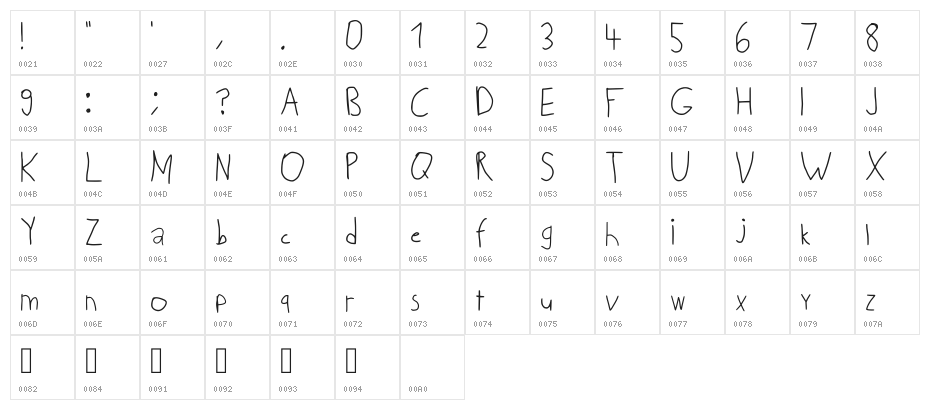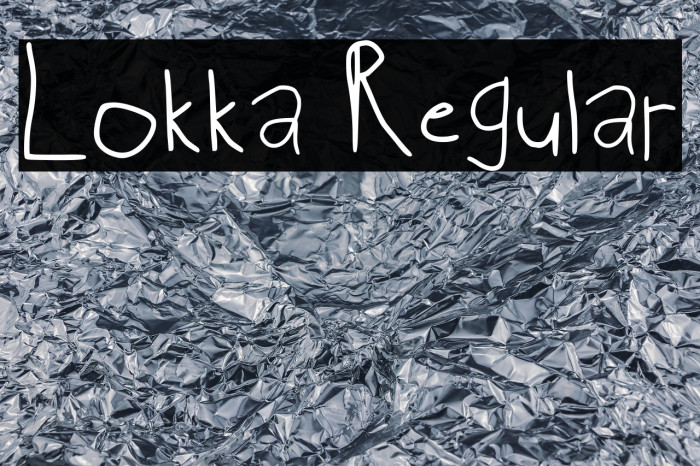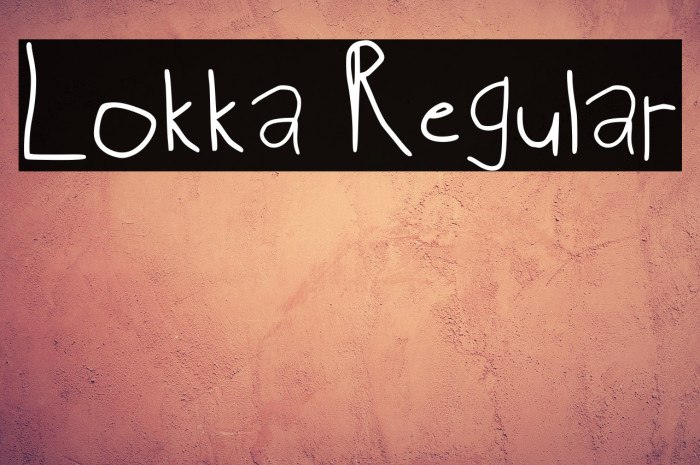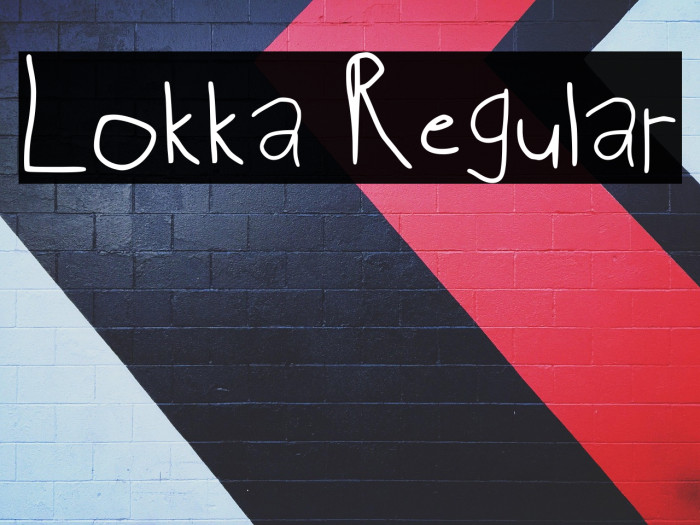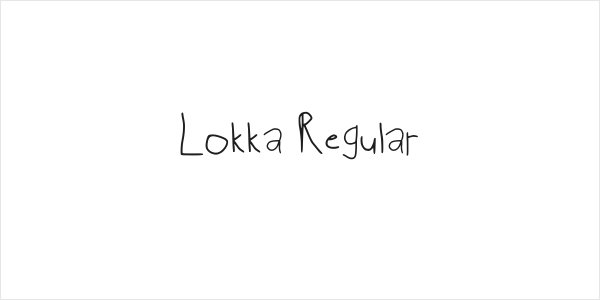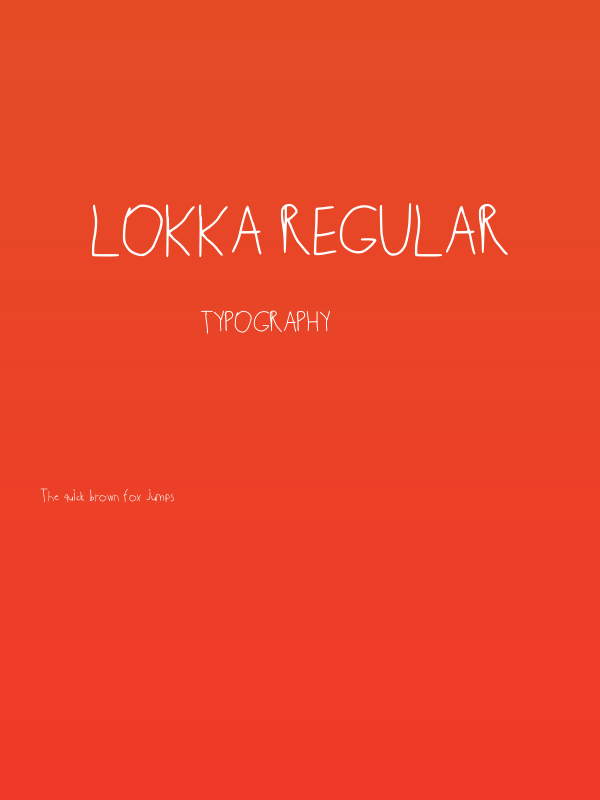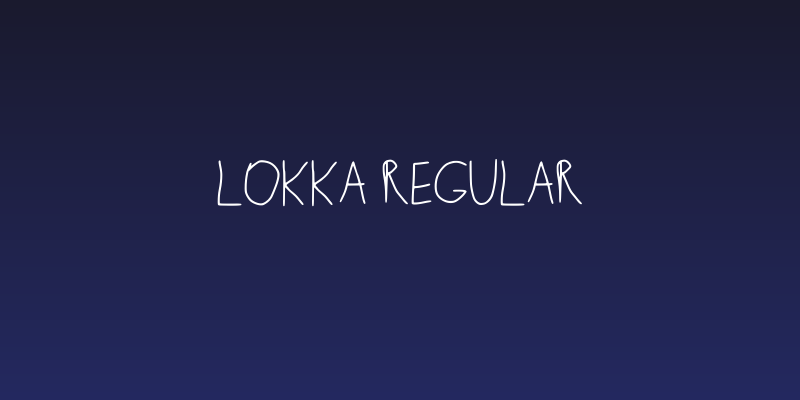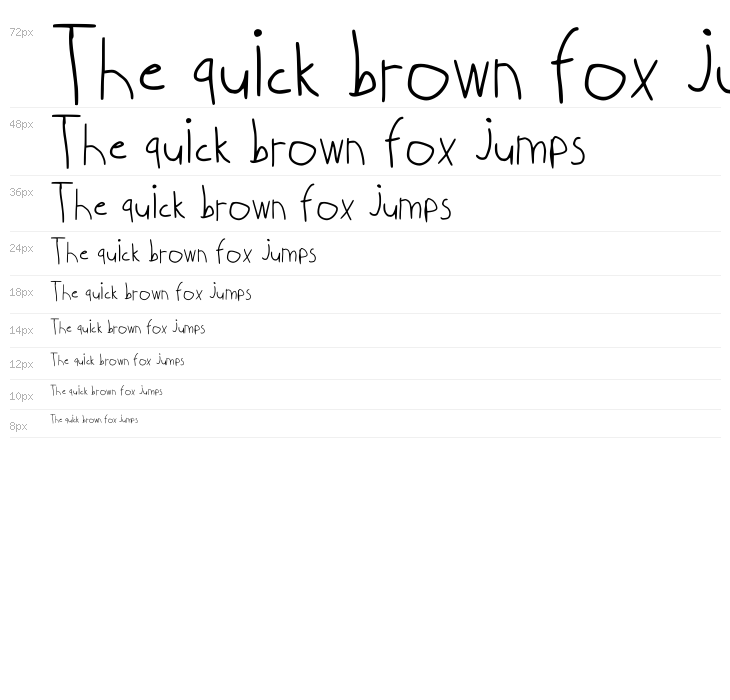
Lokka Regular Font
Lokka Regular Description
This font features a playful and casual handwritten style, characterized by its irregular and slightly uneven strokes. The letters have a whimsical quality, with varying heights and widths that give it a unique personality. The uppercase and lowercase letters maintain a consistent style, while the numerals and special characters complement the overall design. The font's informal nature makes it suitable for projects that require a personal touch or a relaxed aesthetic.
Overall StyleCasual
Use CaseHeadlines, Informal text, Creative projects
Proposed ProjectsIdeal for greeting cards, children's books, personal blogs, and informal branding.